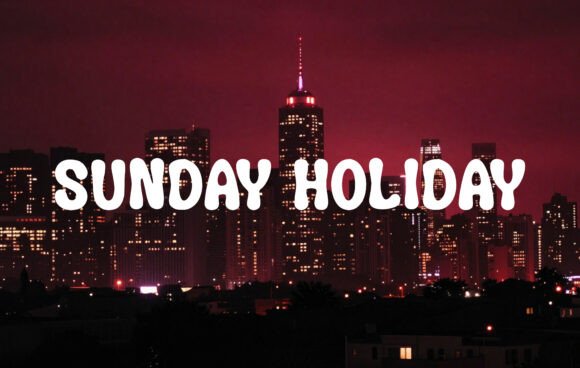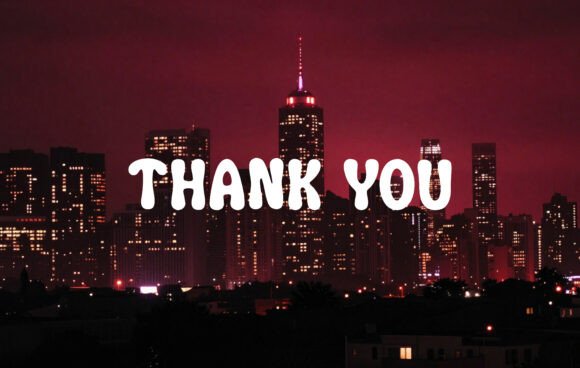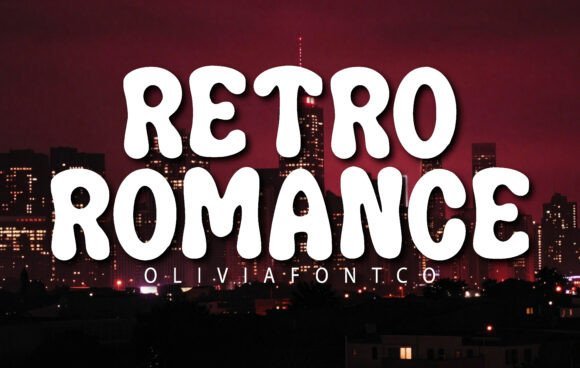
Introduction to Retro Romance Font
Retro Romance is a massive and high-impact display font that perfectly captures a groovy, 1970s-inspired psychedelic aesthetic.
The typeface features heavy, interlocking letterforms with a rhythmic, wavy baseline and distinctively bulbous, “puffy” character proportions Its bold visual weight and fluid, liquid-like silhouette provide a sense of continuous motion and playful nostalgia.